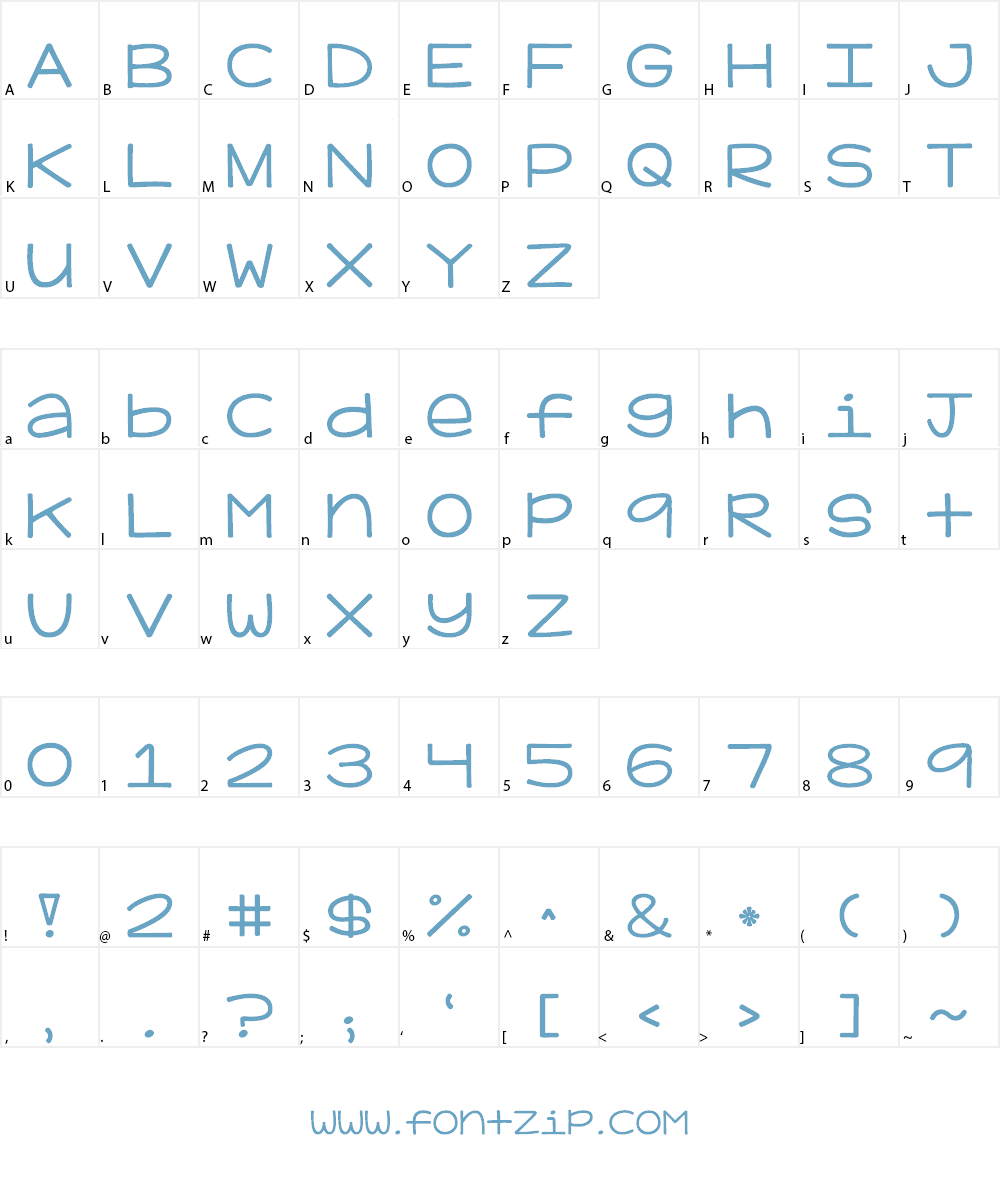
A fun, playful font using monospaced handwritten unicase letters. (Turn kerning off for true monospace!) Please pay for commercial use at http://kimberlygeswein.com